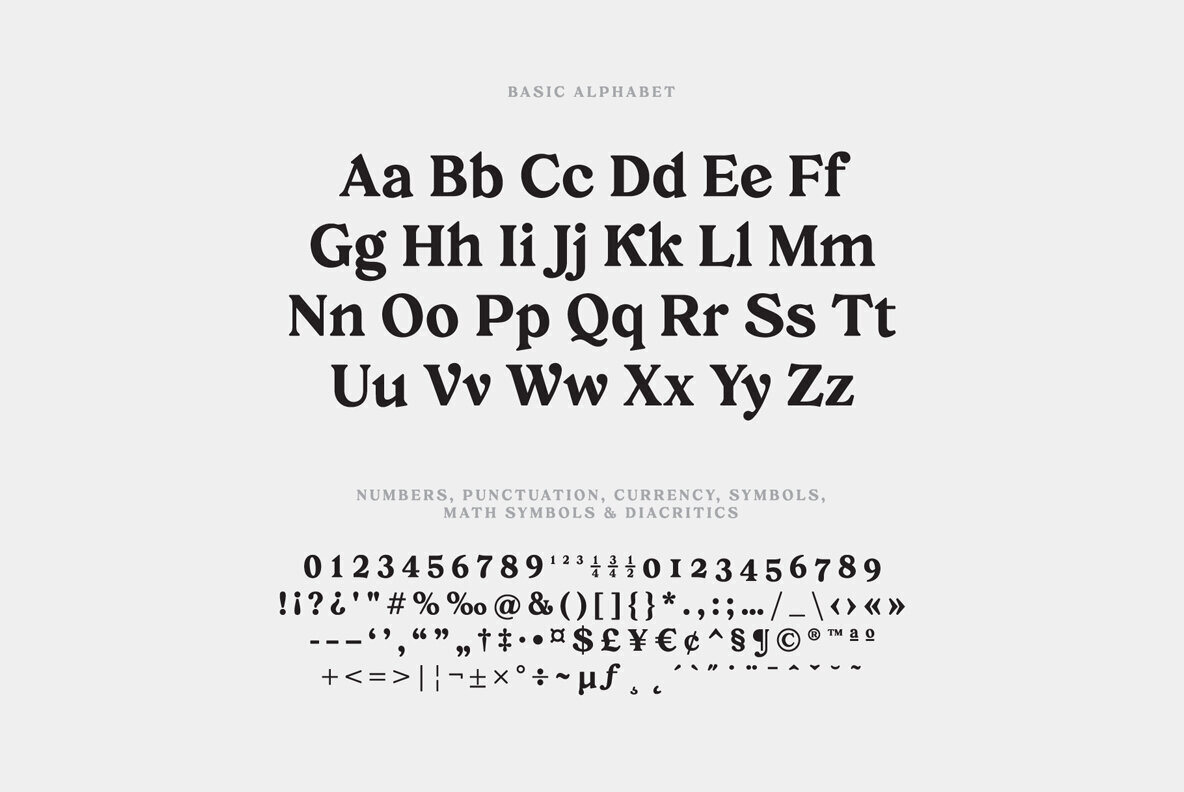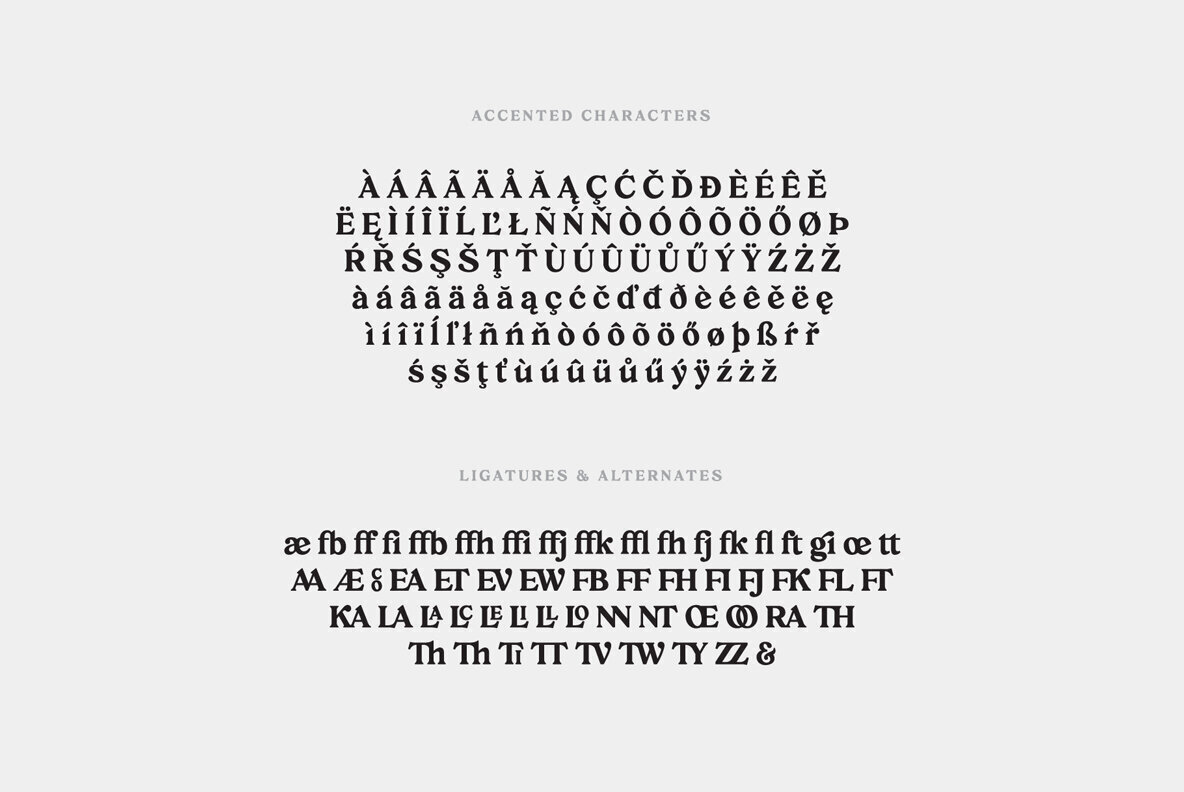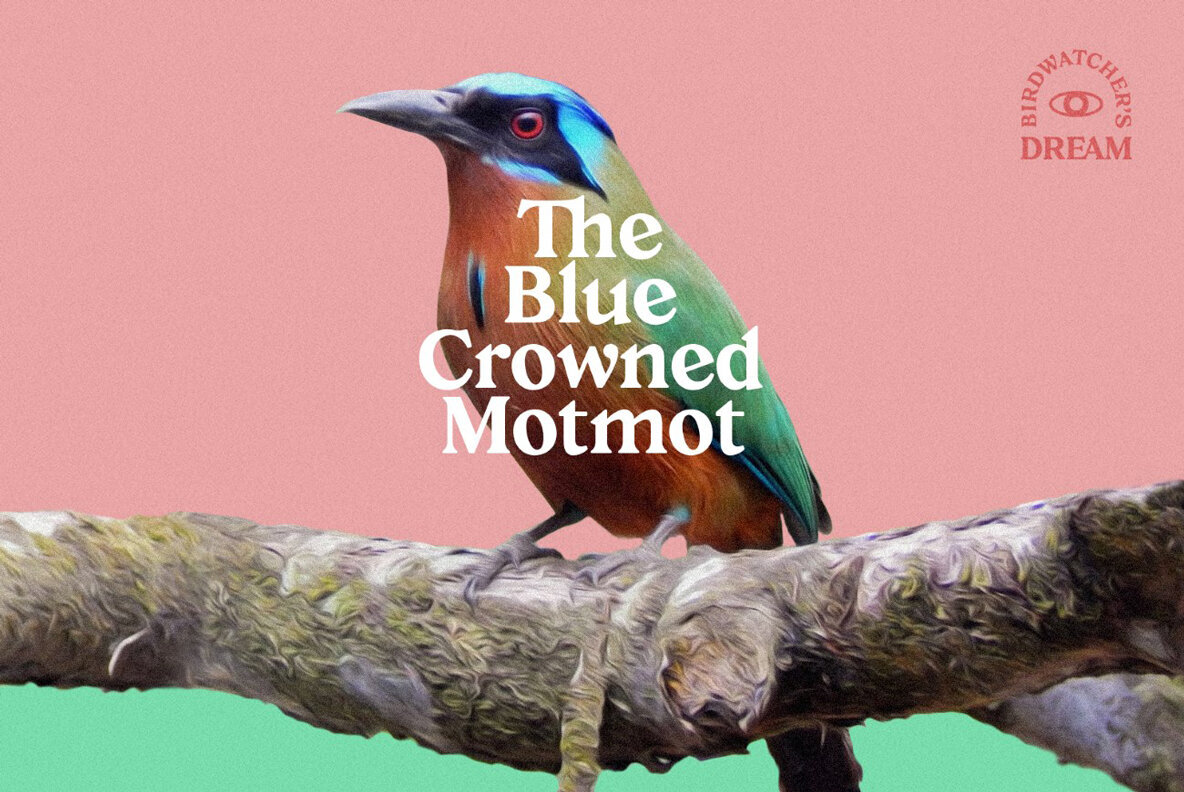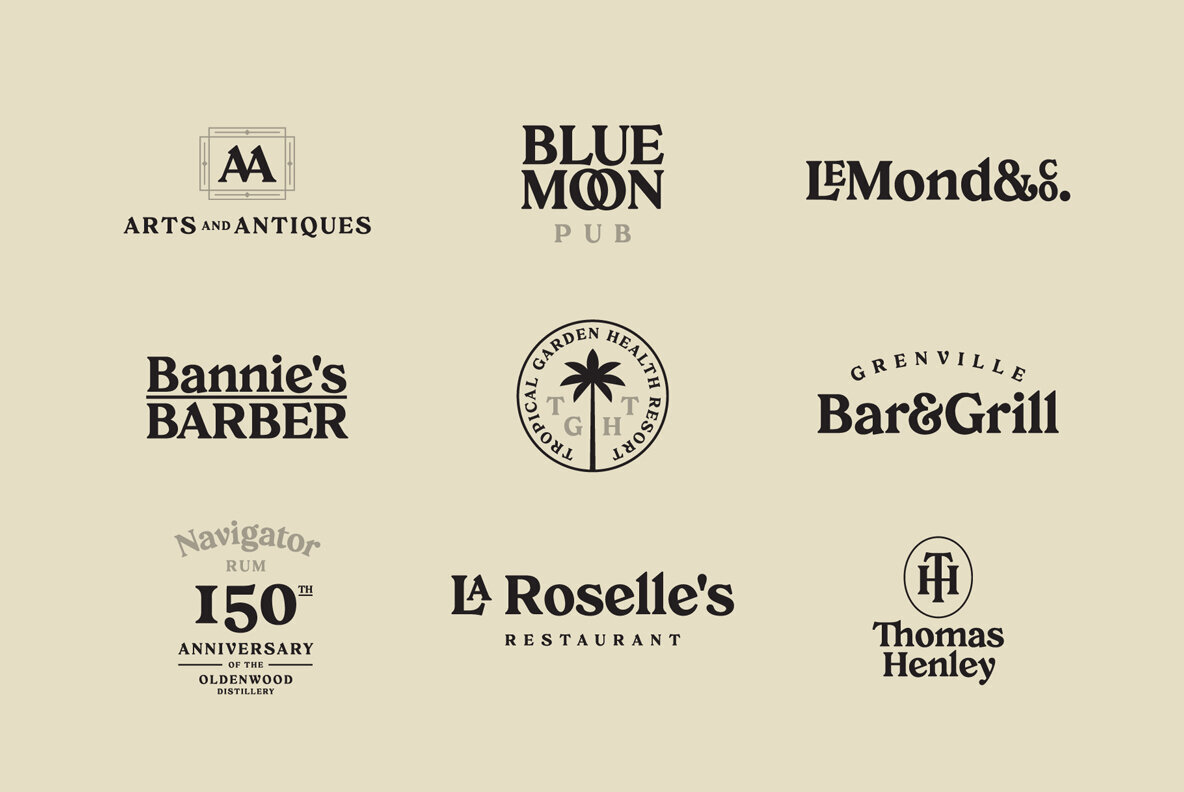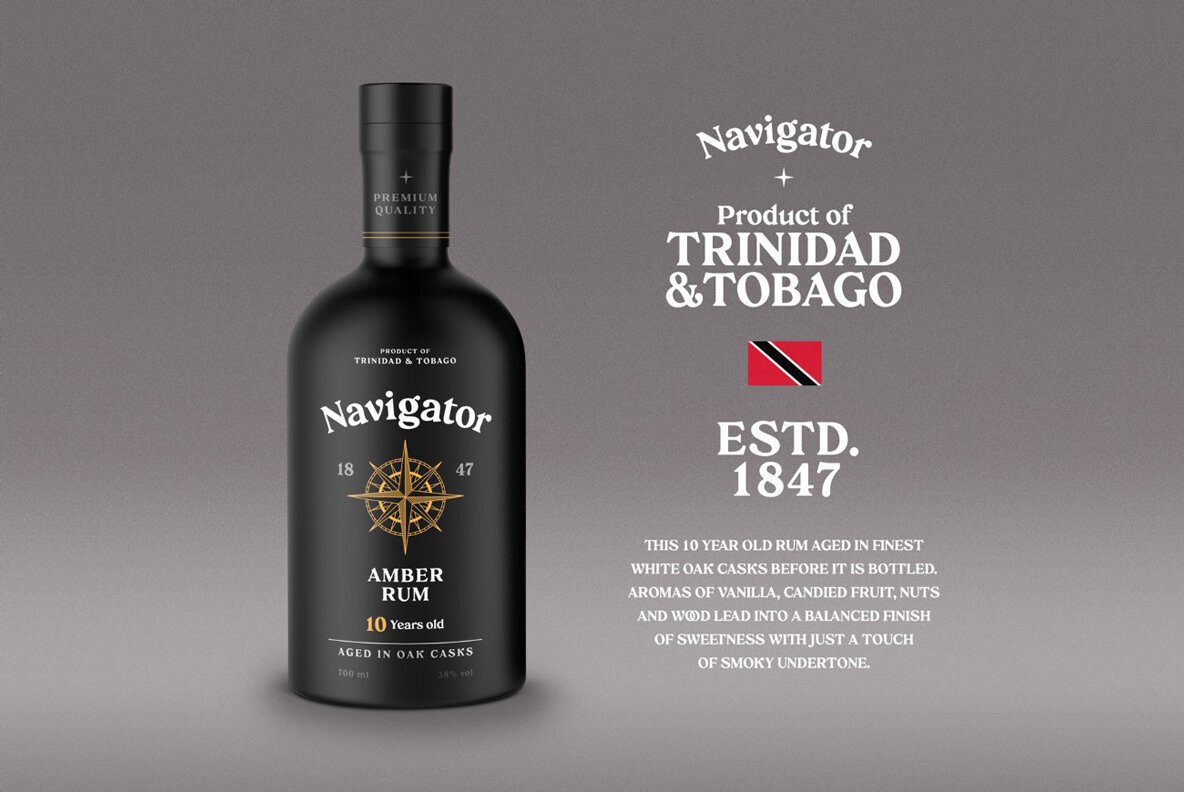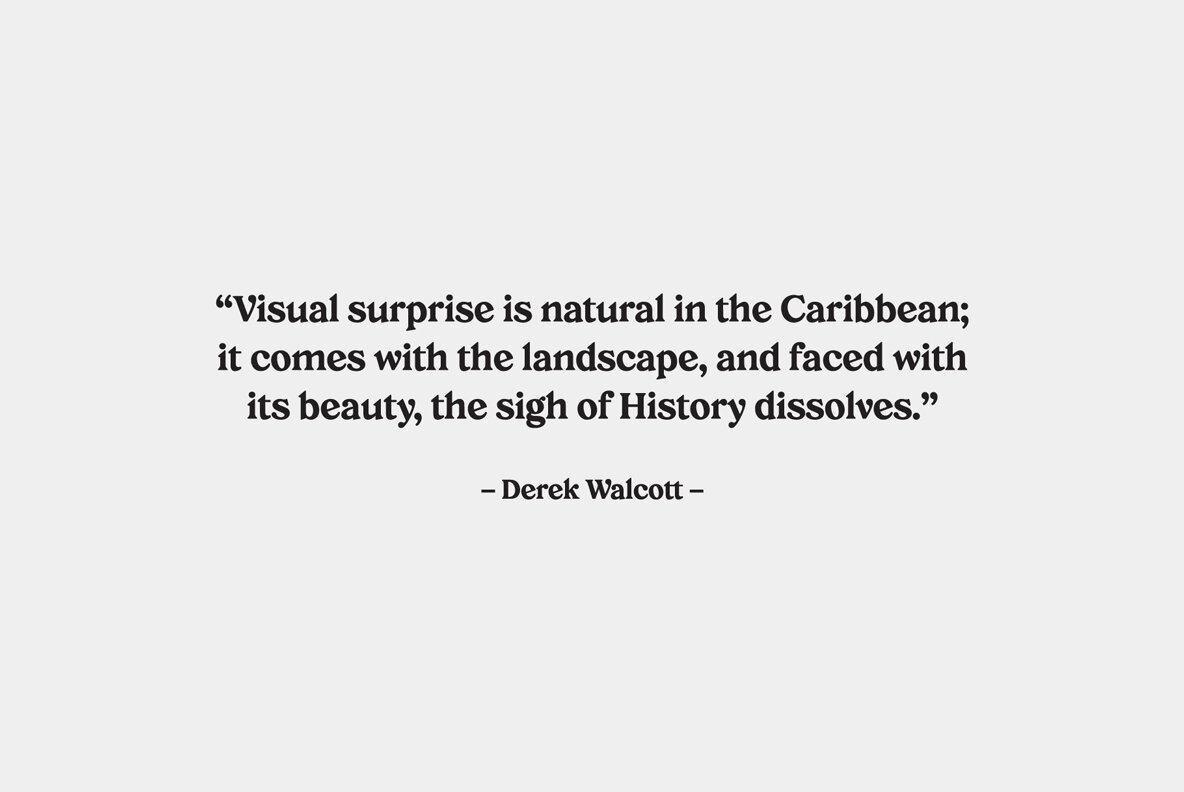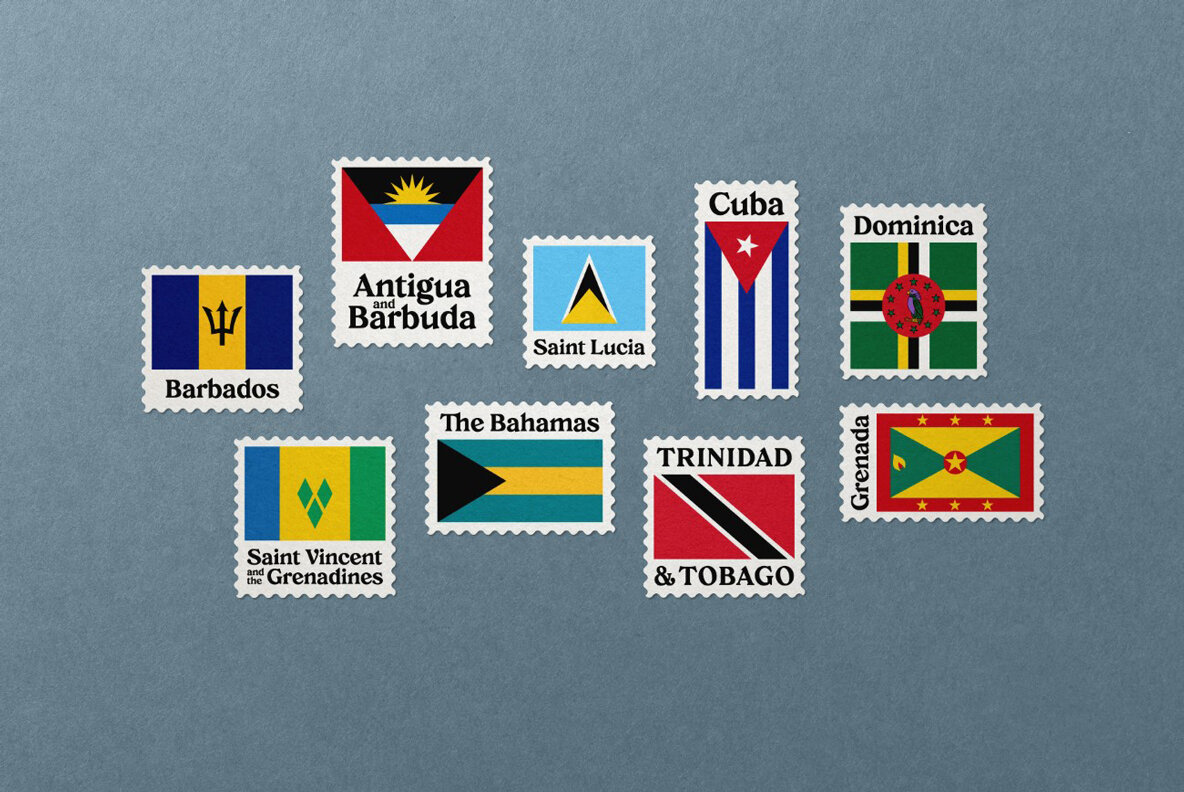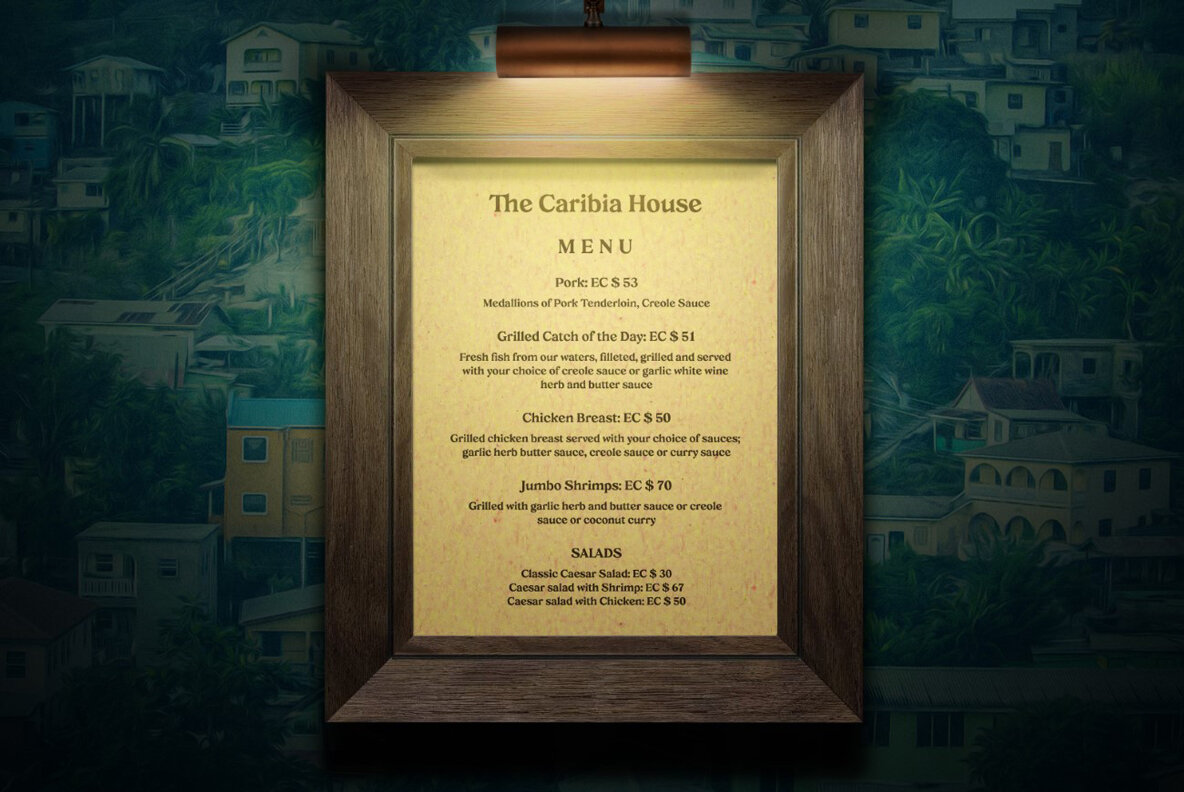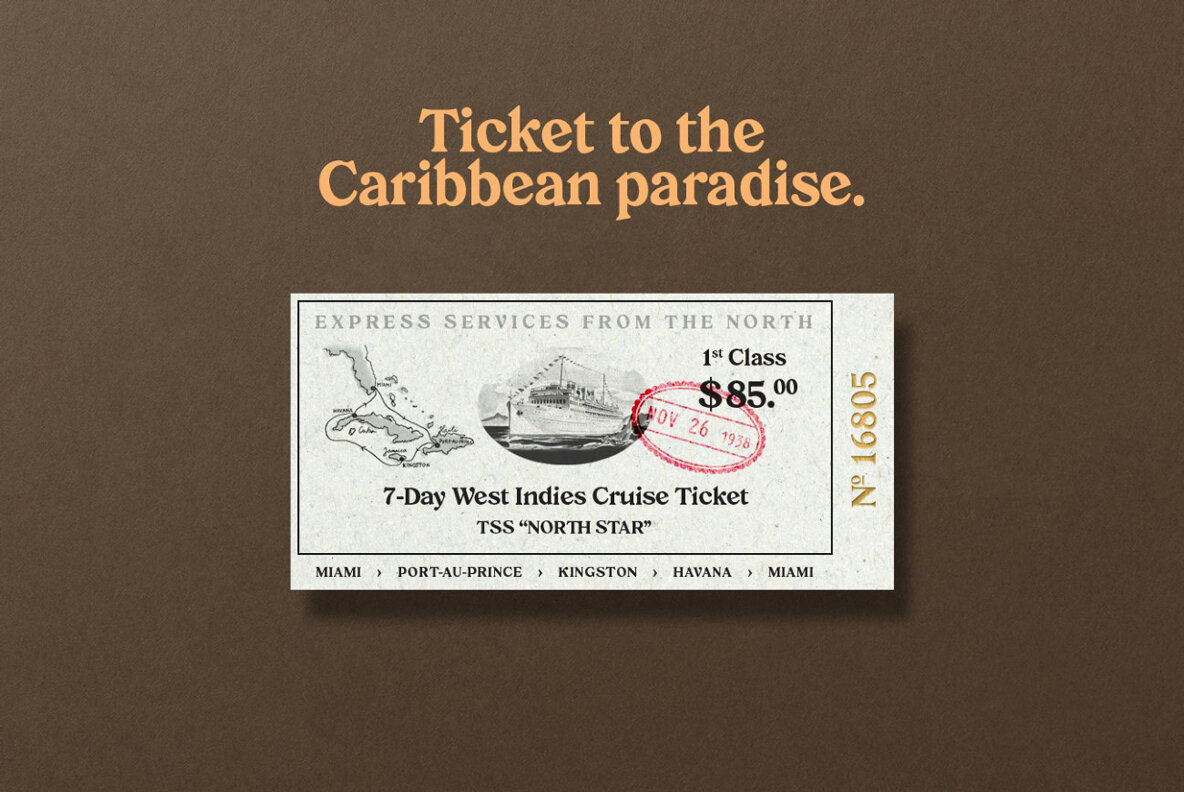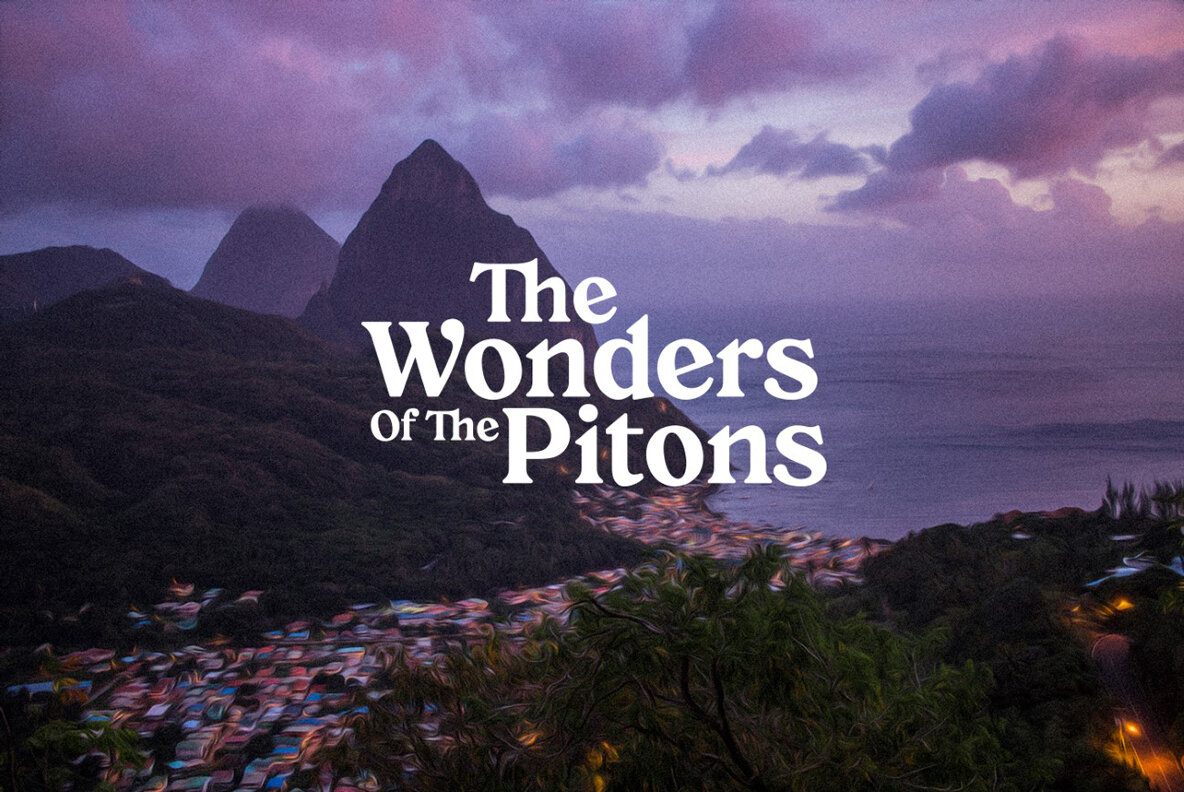
Creolia Font
Creolia
Creolia is a bold rounded serif typeface in modern and classy style. OpenType features include old style figures and ligatures. Creolia is ideal for headlines, headers, logos, labels, packaging, postcards, presentations, magazines, invitations, etc.
FEATURES:
- Basic latin alphabet A-Z
- 56 Ligatures & Alternates
- 112 Accented characters
- Numbers, Punctuation, Currency, Symbols, Math symbols & Diacritics
- Old style figures
LANGUAGE SUPPORT:
- Latin 1 + Latin 2
- Western Europe and Americas: Afrikaans, Basque, Catalan, Danish, Dutch, English, Faroese, Finnish, French, Galician, German, Icelandic, Irish, Italian, Norwegian, Portuguese, Spanish and Swedish.
- Latin-written Slavic and Central European languages: Czech, German, Hungarian, Polish, Romanian, Croatian, Slovak, Slovene.